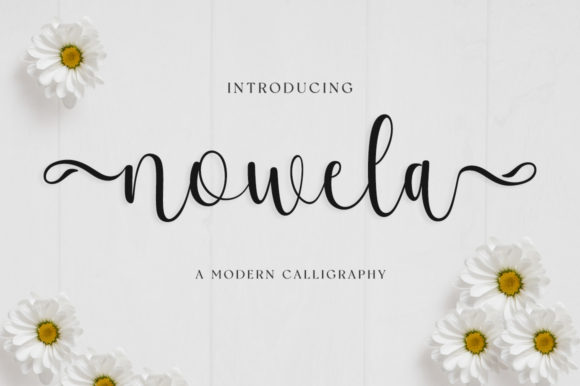
Prepare to be captivated by the exquisite allure of Nowela Script, a breathtaking handwritten font that will ignite your creative spirit and elevate your design projects to new heights of elegance. Each stroke is a testament to the artistry of its creation, infused with a captivating charm that will leave an unforgettable impression on any beholder.
Imagine your resume adorned with the graceful curves of Nowela Script, transforming it into a masterpiece that commands attention and exudes professionalism. Its intricate ligatures and flourishes dance across the page, creating a visually stunning symphony that will set you apart from the crowd.
Step into a world of limitless creative possibilities with Nowela Script. Its versatile nature seamlessly adapts to a myriad of design endeavors, from branding and packaging to social media graphics and website design. Whether you seek to convey a touch of sophistication or a burst of creativity, this font will effortlessly elevate your creations.
With Nowela Script, you unlock a treasure trove of glyphs and ligatures, effortlessly accessible through PUA encoding. Unleash your imagination and explore a world of typographic wonders, where every letter becomes a work of art.
Indulge in the beauty of Nowela Script today and witness the transformative power of exceptional typography. Let its enchanting strokes ignite your creativity and leave a lasting impression on every design project you undertake. Immerse yourself in the world of Nowela Script, where elegance and innovation intertwine to create a font that will captivate and inspire.